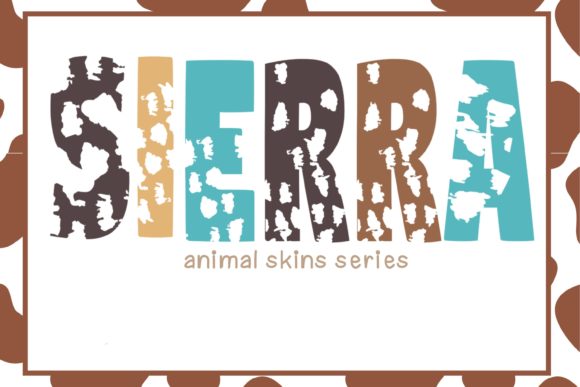
Introducing Sierra Font - The Ultimate Decorative Font for Bold and Unforgettable Impressions
In the realm of design, where creativity reigns supreme, Sierra Font emerges as a visionary masterpiece, a decorative font that captivates and inspires. Whether you're a seasoned designer or a creative enthusiast, Sierra Font is your gateway to unleashing your imagination and leaving an indelible mark on the world of visual communication.
With its fresh and modern aesthetic, Sierra Font transcends the ordinary, injecting life and personality into your designs. Its carefully crafted curves and striking lines dance harmoniously, creating a captivating visual experience that commands attention. Whether you're designing logos, posters, flyers, or any other creative project, Sierra Font is the key to unlocking your true design potential.
Beyond its visual appeal, Sierra Font possesses a remarkable versatility that makes it an indispensable tool for any creative arsenal. Its adaptability shines in various design contexts, from bold headlines and captivating posters to eye-catching branding and social media graphics. With Sierra Font, you're not limited to a single style; it seamlessly adapts to your unique vision, allowing you to express yourself in countless ways.
As a font crafted with meticulous attention to detail, Sierra Font is a testament to the artistry of PJ Fonttein, its creator. Each character exudes a distinct personality, embodying the essence of African animals with an artistic flair like no other. The result is a font that resonates with authenticity and originality, leaving an unforgettable impression on your audience.
Step into the world of Sierra Font and embark on a creative journey where boundaries dissolve, and your imagination knows no limits. Let your designs speak volumes with a font that captures the essence of boldness, creativity, and African heritage. Experience the power of Sierra Font today and transform your designs into captivating masterpieces that leave a lasting impact.